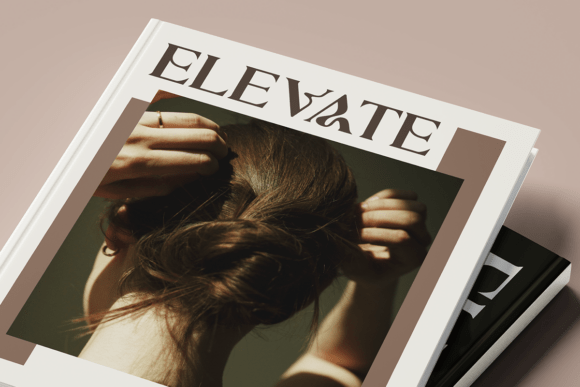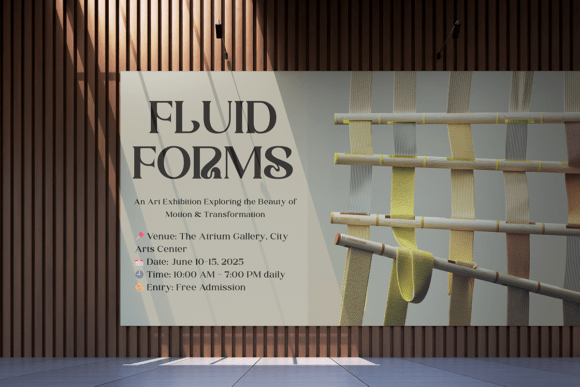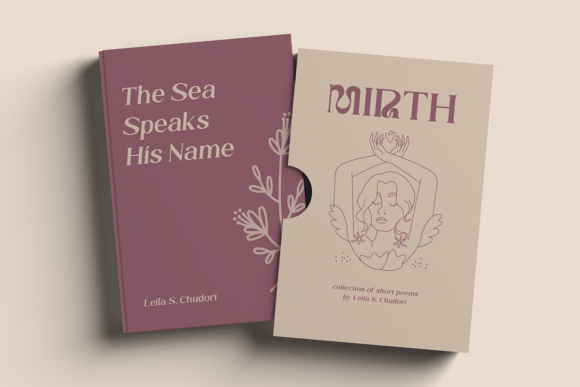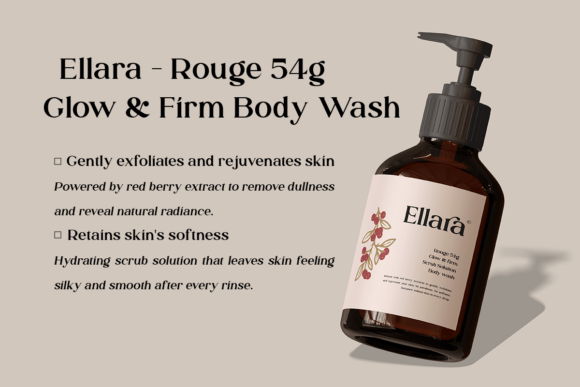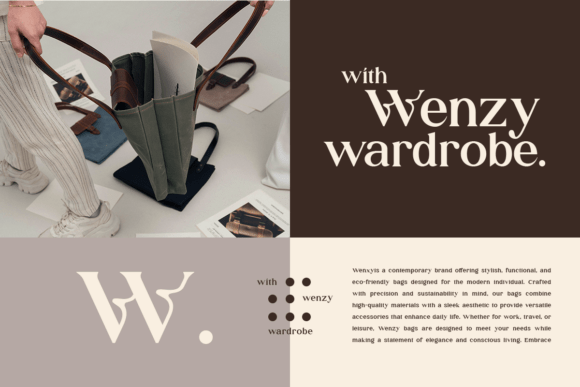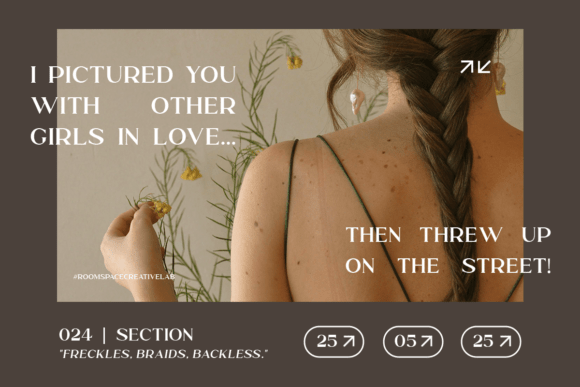
Introduction to Raffin Font
As a designer, you know the thrill of that perfect creative moment when all the elements come together – the color palette, the typography, the composition. It’s a feeling that’s hard to replicate, but when it happens, it’s pure magic. For me, that moment often starts with the right font. And that’s where Raffin Font comes in – a modern serif font that’s about to become your new go-to design resource.
With its unique blend of sculptural elegance and typographic clarity, Raffin Font is the perfect choice for creatives who want to create a high-quality visual identity that’s both poised and approachable. Its refined, high-contrast structure and clean editorial flavor make it a valuable addition to any design project, from boutique branding to artisanal packaging.
Whether you’re working on a free download project or a high-end creative campaign, Raffin Font’s versatility and sophistication make it an invaluable asset. And with its transparent background, you can easily integrate it into any design without worrying about visual clutter. So, let’s dive in and explore the world of Raffin Font – a design treasure that’s sure to elevate your creative project to the next level.
Key Features of Raffin Font
- Perfect for use in logos, branding, and other creative projects where a sophisticated and refined look is desired.
Honest Review: Raffin Font
I recently had the chance to experiment with the Raffin Font, and I must say it’s been a pleasant experience. As a designer, I appreciate high-quality fonts that can elevate my creative projects.
What works well: ✨ The Raffin Font has a unique, modern design that can add a touch of sophistication to any project. The font is also available for free download, which is a major plus for designers working on a budget. The transparent background is another feature that makes it easy to integrate with any design.
Some limitations: ⚠️ While the font is great for general use, I found it a bit lacking in terms of versatility. It’s not ideal for projects that require a lot of emphasis on bold or italic text. Additionally, the font may not be the best choice for projects with a lot of complex typography.
Overall, I’d say the Raffin Font is a solid design resource that can be a great addition to your toolkit. While it may have some limitations, its unique design and free availability make it worth checking out.
Pros:
- Unique, modern design
Cons:
- May not be ideal for bold or italic text
- Not suitable for complex typography projects
Raffin Font
Raffin Font is a high-quality design resource ideal for creative projects that require a unique and elegant touch. With its transparent background, this font is versatile and can be used in a variety of applications.
Tips for Getting the Most Out of Raffin Font
To maximize the effectiveness of Raffin Font, use it in combination with other high-quality design elements, such as graphics and images. Experiment with different font sizes, colors, and styles to create a unique and eye-catching design.
Raffin Font is suitable for a wide range of creative projects, including wedding invitations, business cards, and marketing materials. Its elegant and sophisticated design makes it an ideal choice for formal and professional applications.